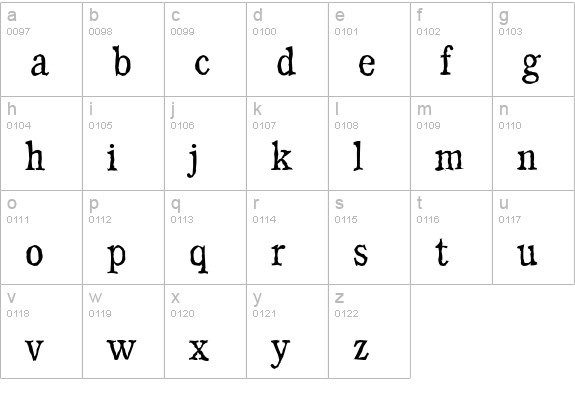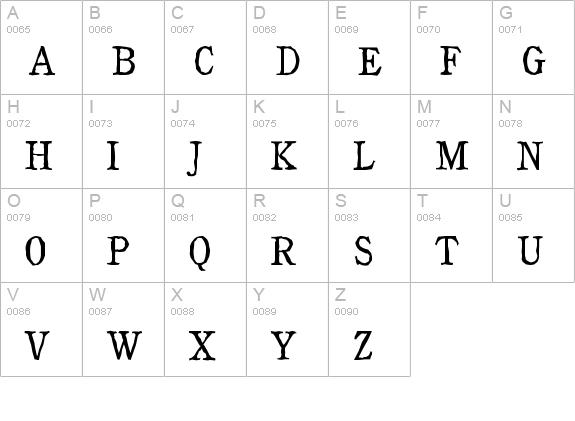
CalgaryAntique-Light-Regular is a refined, elegant variant in the CalgaryAntique typeface family \xE2\x80\x94 well suited to elegant body text, refined sub-headings, and luxury branding.
CalgaryAntique-Light-Regular font exudes a timeless elegance with its intricate details and vintage charm. This font is perfect for adding a touch of nostalgia and sophistication to your designs. Its classic and refined appearance makes it suitable for various projects, from invitations to branding materials. What makes CalgaryAntique-Light-Regular font even more appealing is that it is available for free download at FontsMarket.com. This means you can easily access this beautiful typeface and use it in your creative endeavors without any cost. Embrace the beauty of the past with CalgaryAntique-Light-Regular font and let its antique allure elevate your projects to new heights.